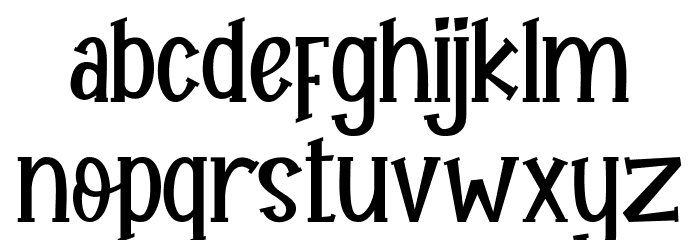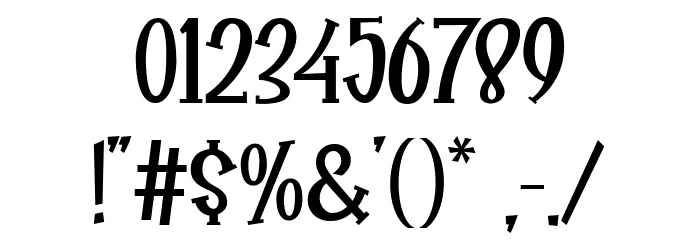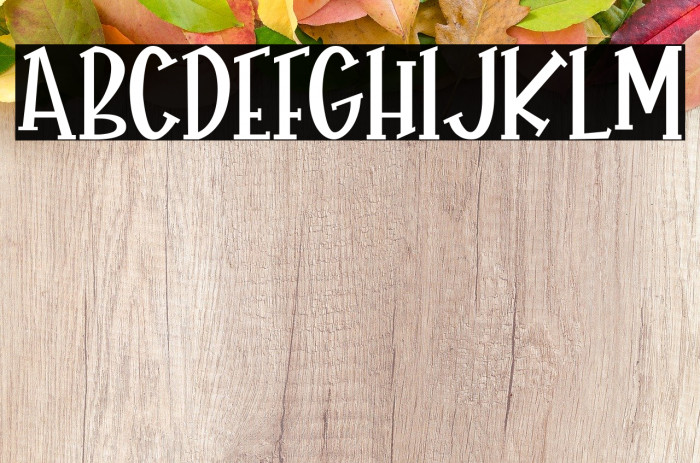
HellowKnight Font
This font features a playful and whimsical style with a distinct flair. The uppercase letters are bold and slightly condensed, with unique curves and angles that give them a lively appearance. The lowercase letters maintain a consistent style, with rounded edges and a slight slant that adds to the font's charm. The numerals are clear and easy to read, with a consistent height that matches the uppercase letters. Special characters are creatively designed, maintaining the overall playful theme. This font is ideal for projects that require a fun and engaging look, such as children's books, playful branding, or creative posters.
A playful and whimsical font with bold, slightly condensed uppercase letters and rounded lowercase letters.
- Font: HellowKnight
- Proposed Projects: Children's books, playful branding, creative posters, invitations, and greeting cards.
- Overall Style: Playful, Whimsical